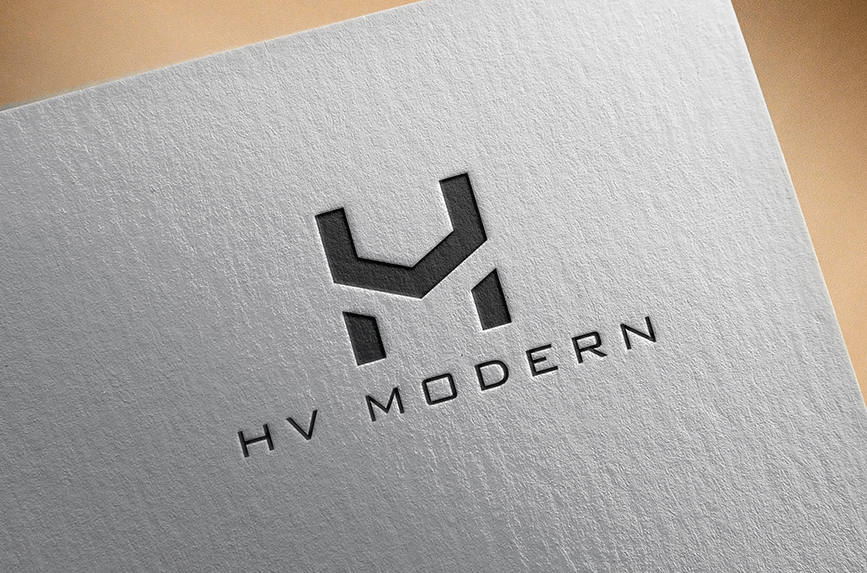
Bank Gothic Font Dafont. Fonts similar to bank gothic. This font is similar to stylish font and banker comes into existence during the early 50s.
The licence mentioned above the download button is just an indication. The font has special glyphs it includes only in bold weight. This geometric possess eight unique styles along with splendid marks.
Beautiful truetype seasoned and viva beautiful seasoned b consist of opentype alternates and commonplace ligatures. May 11, 2013 at 19:12. After a lengthy study, we discovered that the font used for the film title in the poster is highly comparable to bank gothic bold created by.
And It Was Created By American In 1930.
This Amazing Font Was Firstly Published In 1930.